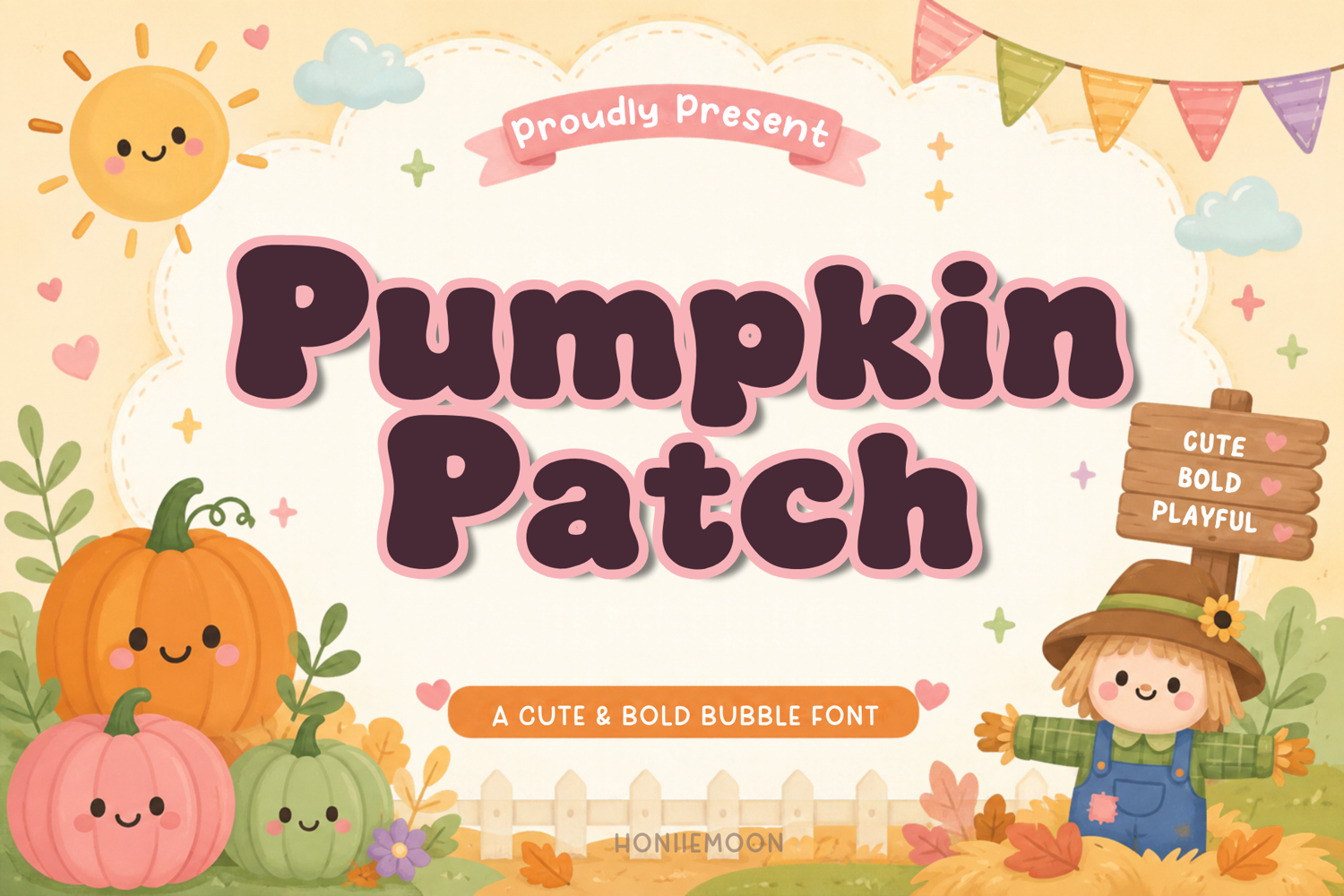
Meet Pumpkin Patch, a cute bold bubble font designed for fun Fall and pumpkin-themed creations. With chunky, rounded letters and a playful personality, this font is perfect for adding a cheerful seasonal look to your designs.
Use Pumpkin Patch for Fall and Autumn crafts, pumpkin patch signs, Halloween projects, Thanksgiving designs, Cricut T-shirts, sublimation products, stickers, mugs, tote bags, invitations, greeting cards, labels, signs, and more.